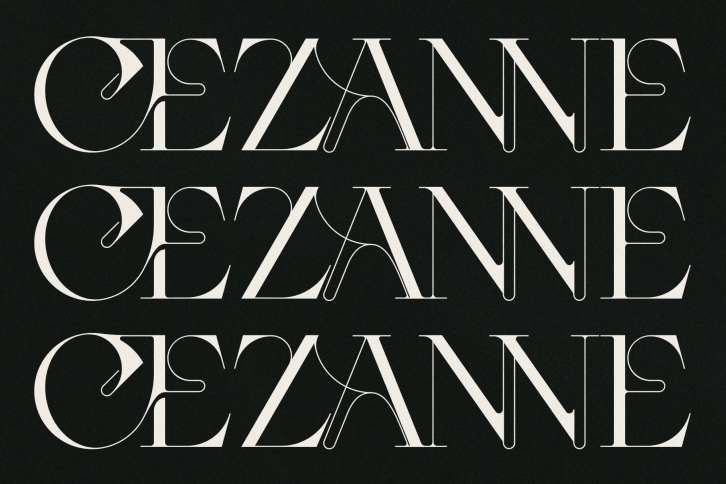
CEZANNE is a trendy and unique font with an authentic style. It was designed by SilverStag and it's a great choice for creative people who need such a font. It was released on July 25, 2022 and the file size is 21.56 MB. CEZANNE will add an organic vibe to any design idea!